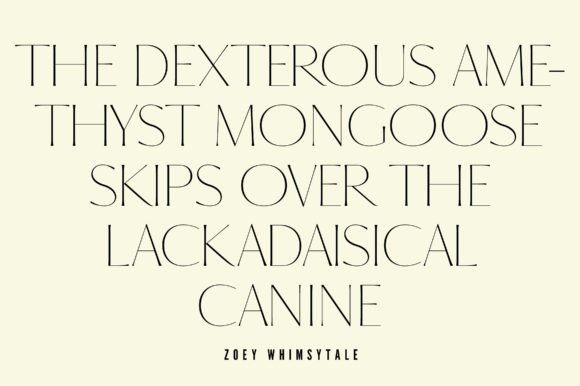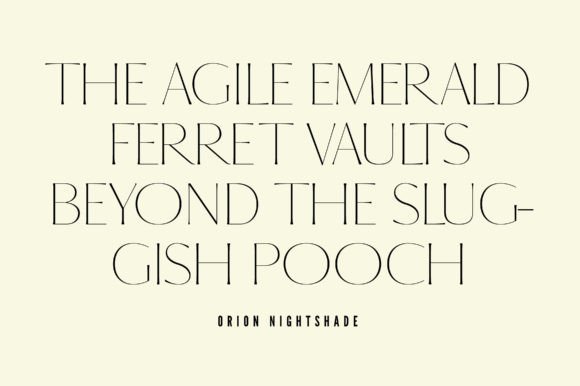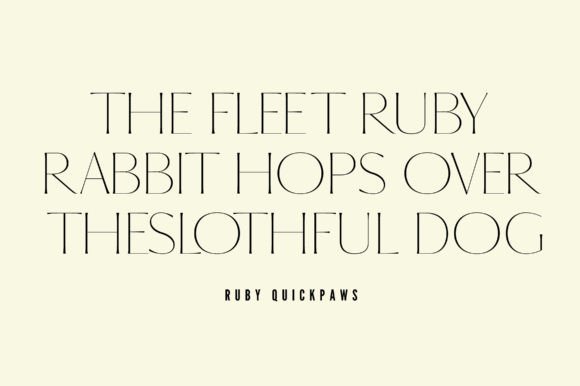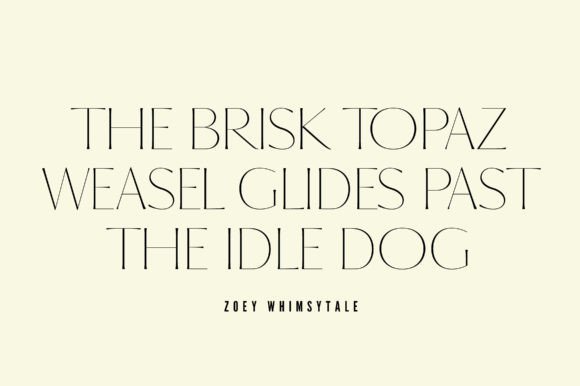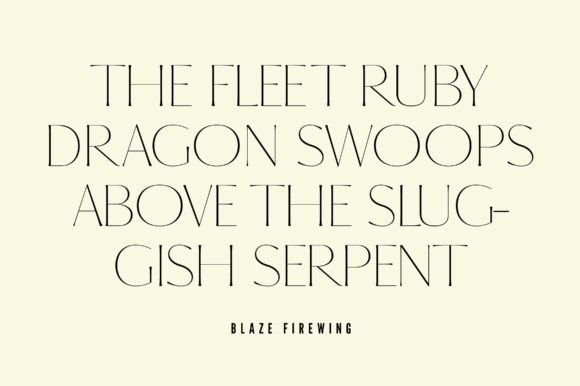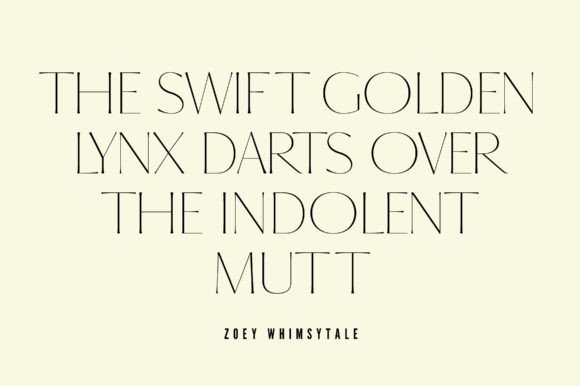
Discover Flowa Font: The Epitome of Minimalist Elegance
In the realm of typography, few fonts manage to strike a balance between simplicity and sophistication as effortlessly as Flowa Font. This minimalist, delicate, and chic sans serif typeface has been making waves in the design community, and for good reason. Flowa’s clean lines, balanced letterforms, and modern elegance make it the perfect choice for designers and crafters looking to elevate their creations with a touch of timeless sophistication.
The Beauty of Subtlety
Flowa’s design philosophy revolves around the idea that sometimes, less is more. In a world where bold and flashy typography often takes center stage, Flowa’s understated approach is a breath of fresh air. This font’s subtle charm lies in its ability to convey elegance and refinement without resorting to elaborate ornamentation. The result is a typeface that exudes quiet confidence and poise, making it perfect for designs that require a touch of sophistication.
One of Flowa’s greatest strengths is its versatility. This font can seamlessly adapt to a wide range of design projects, from luxury branding and high-end fashion to digital media and editorial design. Whether you’re creating a sleek logo, a stylish website, or a beautiful editorial spread, Flowa’s clean lines and balanced letterforms ensure that your message is conveyed with clarity and style.
Key Features of Flowa Font
- Minimalist design: Flowa’s sleek and simple design makes it perfect for modern designs that require a touch of elegance.
- Delicate and chic: This font’s delicate and chic aesthetic adds a touch of sophistication to any design project.
- Clean lines and balanced letterforms: Flowa’s clean lines and balanced letterforms ensure that your message is conveyed with clarity and style.
- Timeless sophistication: Flowa’s classic design ensures that your creations will remain stylish for years to come.
Why Designers and Crafters Love Flowa
Flowa has quickly become a favorite among designers and crafters, and it’s easy to see why. This font offers a unique combination of style, versatility, and elegance that is hard to find in other typefaces. Here are just a few reasons why Flowa has won the hearts of so many creatives:
- Ease of use: Flowa is incredibly easy to use, even for those who are new to design.
- High-quality design: Flowa’s design is of exceptionally high quality, making it perfect for professional designs.
- Flexibility: Flowa can be used for a wide range of design projects, from print to digital media.
Tips for Using Flowa Font
To get the most out of Flowa, here are a few tips to keep in mind:
- Pair with bold fonts: Flowa’s delicate design pairs beautifully with bold fonts, creating a striking contrast that adds visual interest to your designs.
- Experiment with colors: Flowa’s clean lines and balanced letterforms make it easy to experiment with different colors and textures.
- Use in headlines and body copy: Flowa is perfect for both headlines and body copy, making it a versatile addition to any design project.
In conclusion, Flowa Font is a true gem in the world of typography. Its minimalist design, delicate aesthetic, and timeless sophistication make it the perfect choice for designers and crafters looking to elevate their creations with a touch of elegance. Whether you’re working on a luxury brand, a stylish website, or a beautiful editorial spread, Flowa is sure to impress. So why not give Flowa a try and experience the essence of refined typography for yourself?